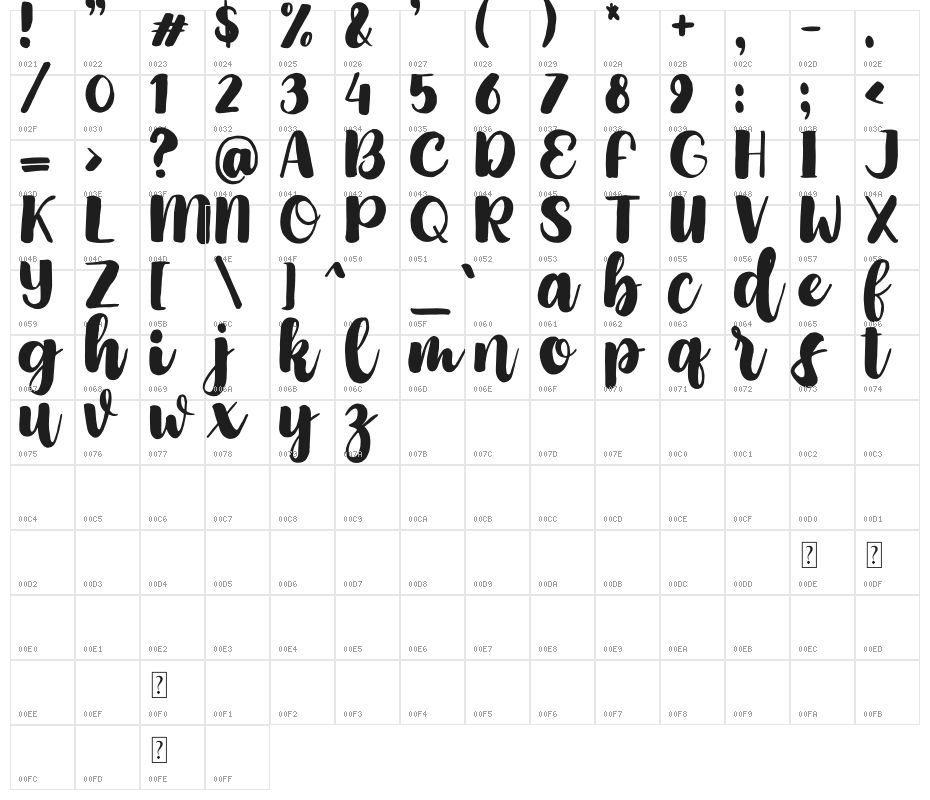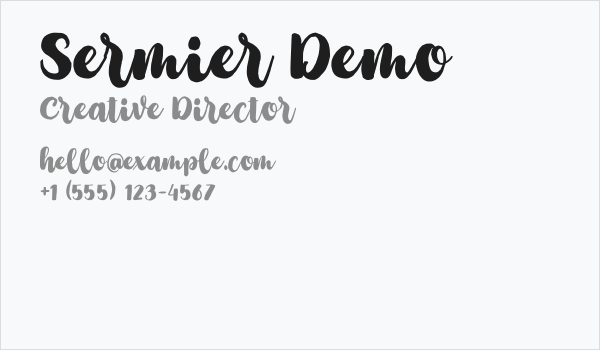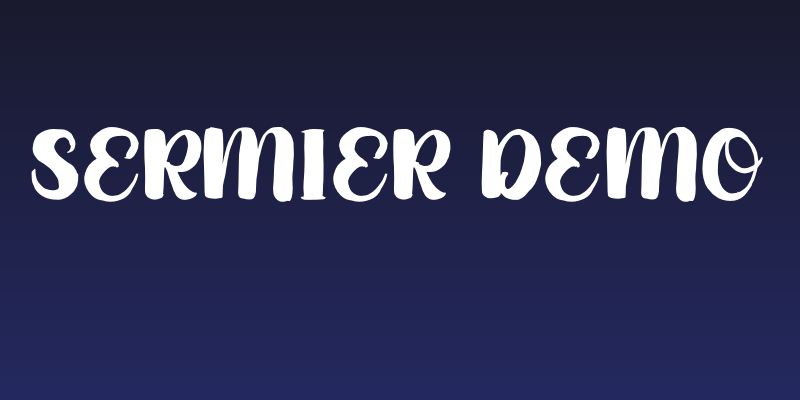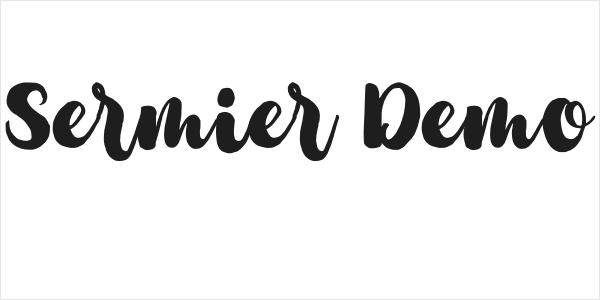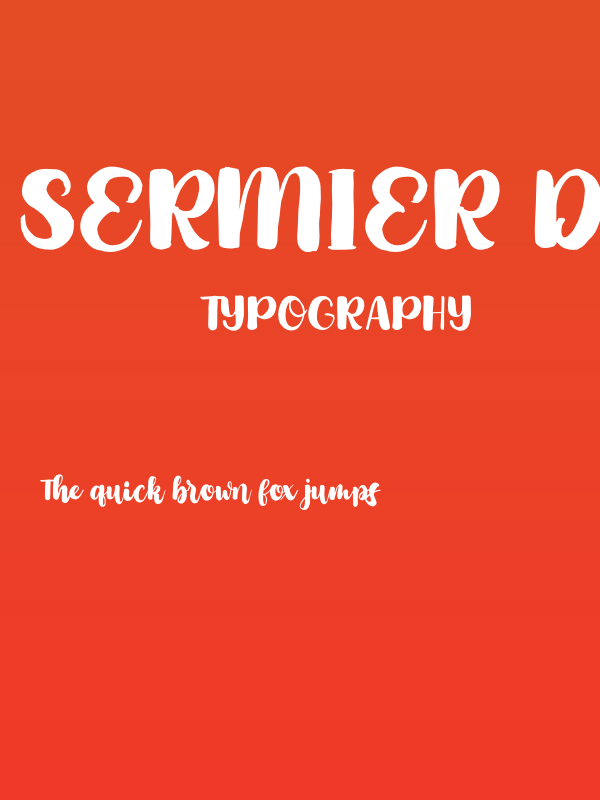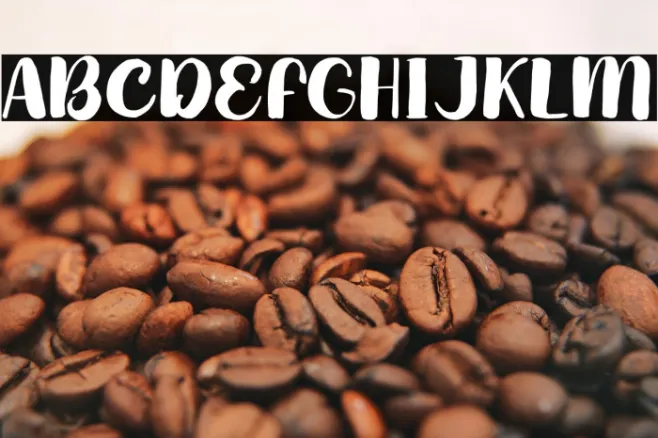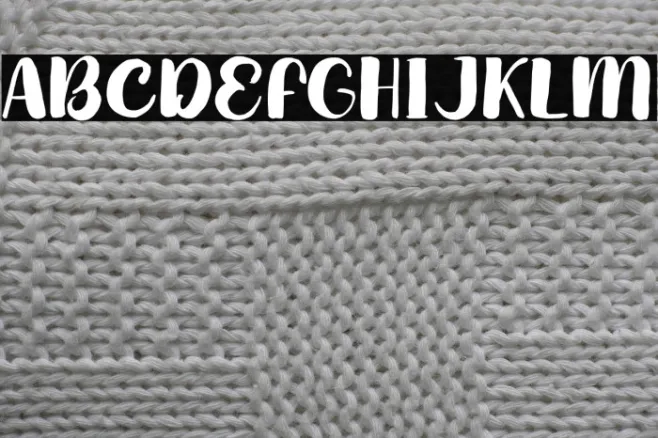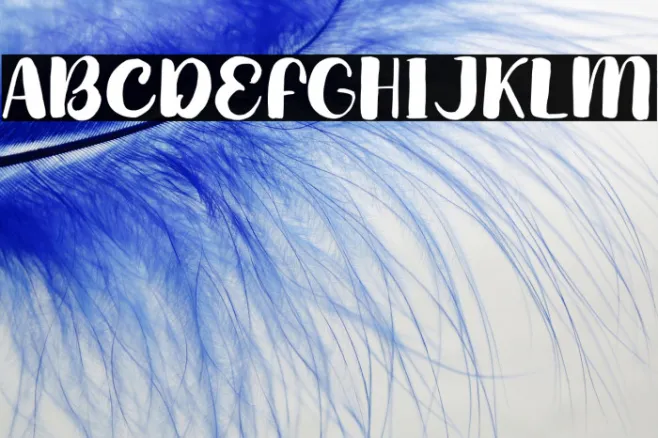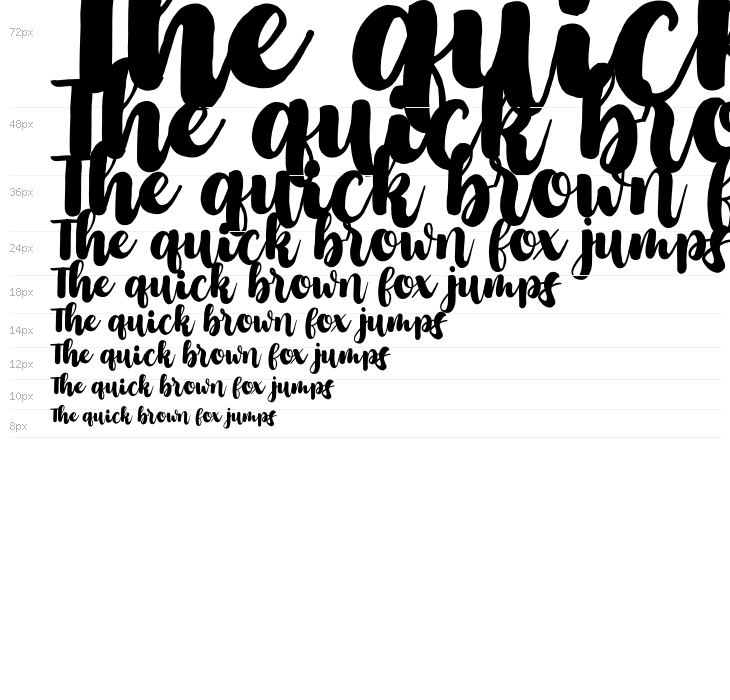
Sermier Demo Font
Sermier Demo Description
This font features a bold and expressive script style with a hand-painted appearance. The characters are fluid and dynamic, with thick strokes and a playful, artistic flair. The uppercase letters maintain a consistent height, while the lowercase letters exhibit a charming variation in size and form, enhancing the font's casual and friendly vibe. The numerals and special characters are equally bold, ensuring readability and visual impact. This font is perfect for projects that require a personal touch, such as invitations, greeting cards, or branding materials that aim to convey warmth and creativity.
| Proposed Projects | Ideal for invitations, greeting cards, branding materials, and creative projects. |